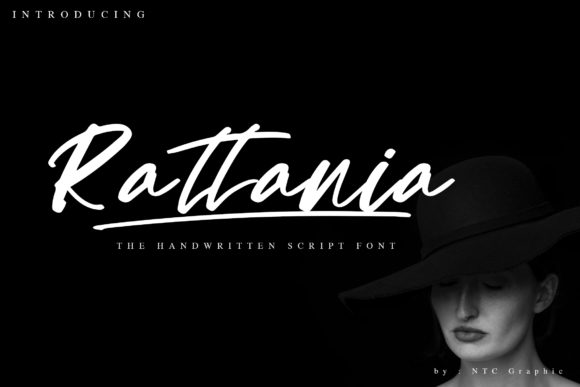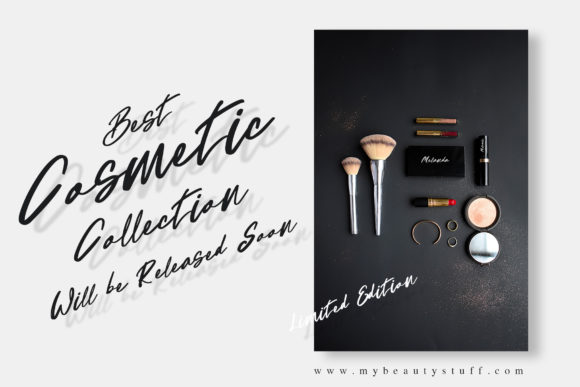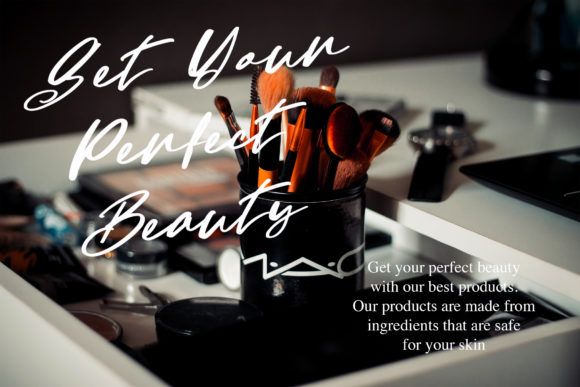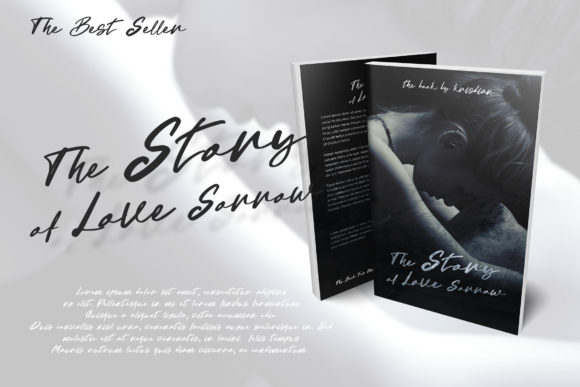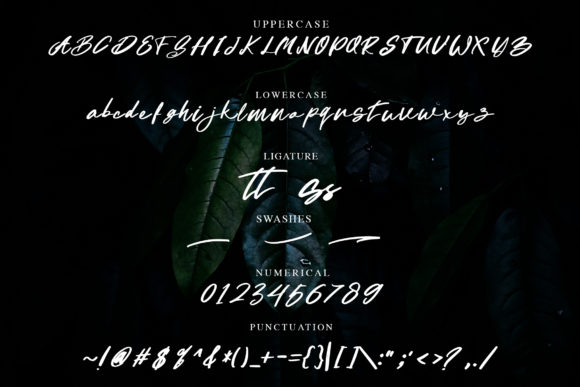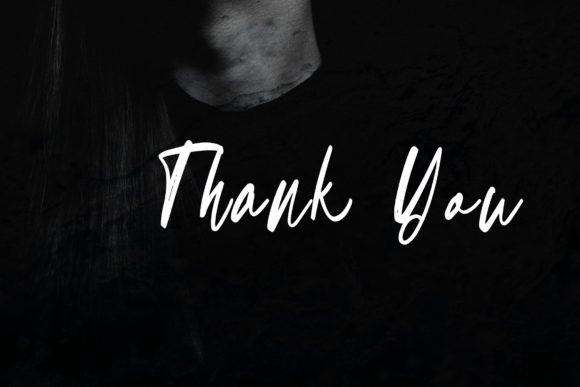
Rattania Font
About Rattania Font
Rattania is a script font with handwritten style. It features a relaxed feel that makes it perfect for creating greeting cards, logos, social media posts and much more!